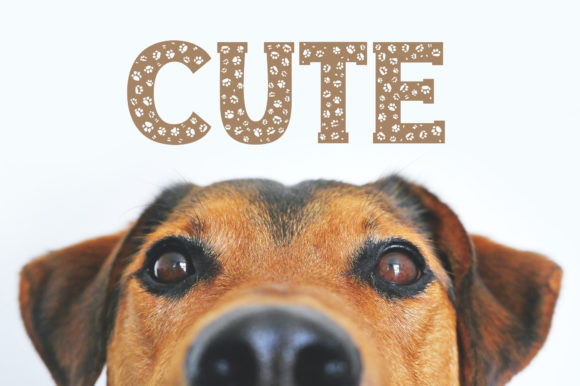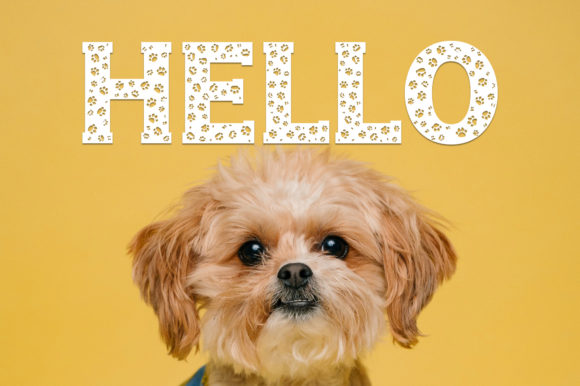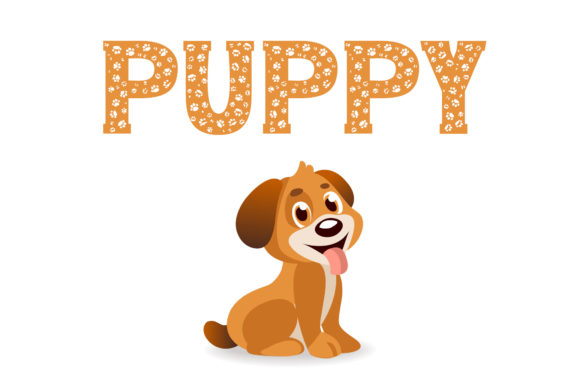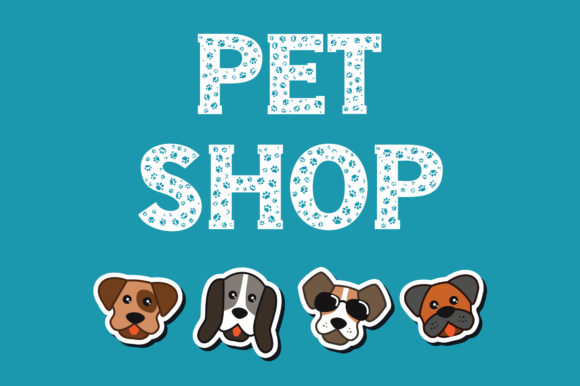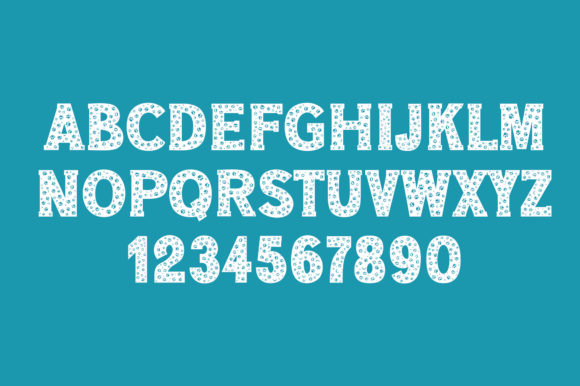
Introducing Dog Font: The Paw-fect Addition to Your Pet-Themed Projects
Are you a designer, crafter, or pet lover looking for a unique and playful font to add a personal touch to your projects? Look no further than Dog Font, a bold, fun, and cute decorative font that’s sure to make your pet-related creations stand out. In this article, we’ll dive into the features and benefits of Dog Font, and explore how it can be used to bring your pet-themed projects to life.
What is Dog Font?
Dog Font is a decorative font that features paws as ornaments, giving it a distinctive and adorable look. This font is perfect for anyone who loves dogs and wants to add a touch of whimsy and personality to their designs. Whether you’re creating a logo, poster, or social media graphic, Dog Font is an incredible choice for pet-related projects.
Key Features of Dog Font
- Bold and Fun Design: Dog Font features a bold and playful design that’s sure to grab attention. The font’s chunky letters and paw ornaments make it perfect for creating eye-catching graphics and designs.
- Cute and Playful Ornaments: The paw ornaments used in Dog Font add a cute and playful touch to any design. They’re perfect for adding a personal touch to pet-themed projects, such as dog birthday cards, pet store logos, or animal shelter posters.
- Versatile: Dog Font can be used for a wide range of pet-related projects, from logos and branding to social media graphics and posters.
Benefits of Using Dog Font
So, why choose Dog Font for your pet-themed projects? Here are just a few benefits of using this fun and playful font:
- Adds Personality to Your Designs: Dog Font adds a personal touch to your designs, making them more engaging and memorable.
- Perfect for Pet Lovers: If you’re creating designs for pet lovers, Dog Font is a great choice. It’s a fun and playful way to show your love for dogs and add a touch of whimsy to your designs.
- Easy to Read: Despite its bold and playful design, Dog Font is easy to read, making it perfect for use in titles, headings, and short paragraphs of text.
Using Dog Font in Your Designs
So, how can you use Dog Font in your designs? Here are a few ideas to get you started:
- Pet Store Logos: Use Dog Font to create a fun and playful logo for a pet store or animal shelter.
- Dog Birthday Cards: Create custom dog birthday cards using Dog Font and add a personal touch to your pet’s special day.
- Social Media Graphics: Use Dog Font to create eye-catching social media graphics for pet-related businesses or organizations.
- Posters and Flyers: Create bold and eye-catching posters and flyers using Dog Font and add a touch of personality to your designs.
In conclusion, Dog Font is a fun and playful decorative font that’s perfect for pet-themed projects. Its bold and cute design, featuring paws as ornaments, makes it an incredible choice for designers, crafters, and pet lovers. Whether you’re creating a logo, poster, or social media graphic, Dog Font is sure to add a personal touch and make your designs stand out. So why not give Dog Font a try and see how it can bring your pet-themed projects to life?